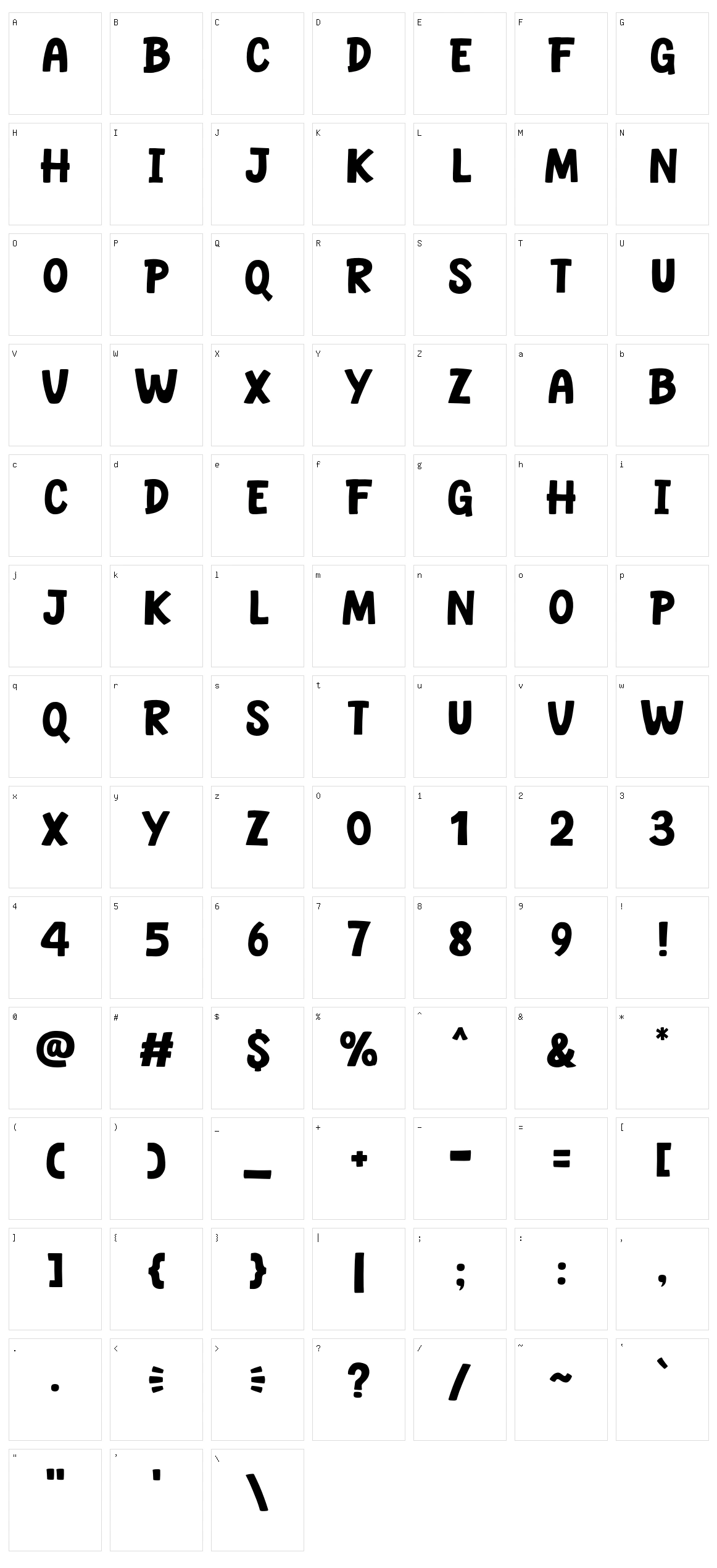
The free font Sohungry is carefully designed by Khurasan, showcasing a thoughtful balance of creativity and usability and falls under the Cartoon font style. When you download the ZIP file, it contains only 383.88 KB of font files, making it lightweight and quick to download. Please review the license details below to understand permitted usage and distribution rights. If license information is not available, we recommend using this font for personal projects only or contacting the author directly for commercial usage permissions.